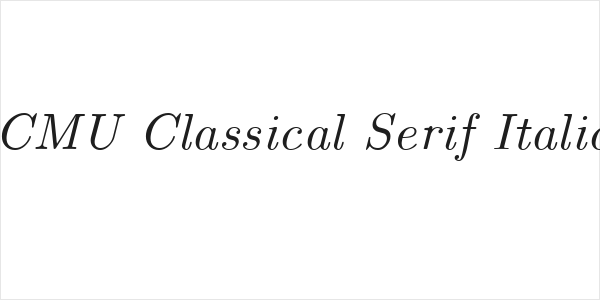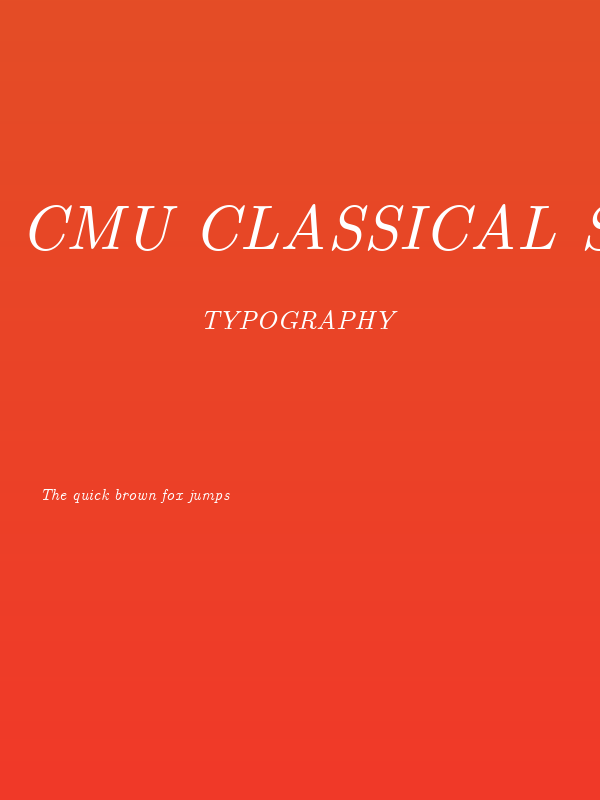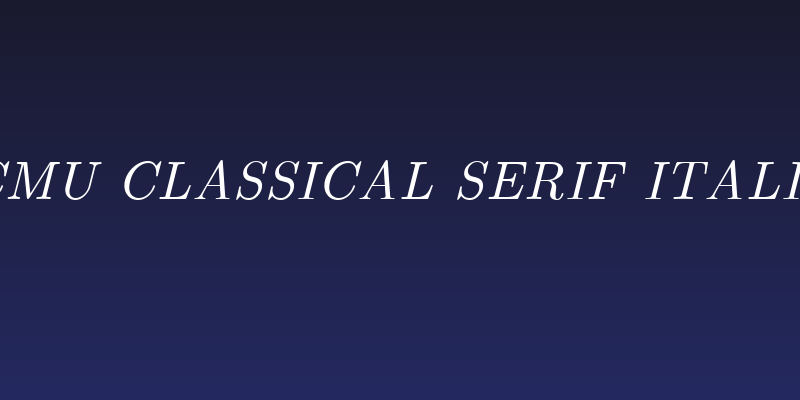
CMU Classical Serif Italic Font
CMU Classical Serif Italic Description
This font exudes a classic elegance with its italicized serif style, characterized by graceful curves and a refined structure. The uppercase letters are tall and stately, while the lowercase letters maintain a smooth flow, enhancing readability. The numerals are well-proportioned, and the special characters are crafted with precision, adding a touch of sophistication. The overall design is balanced, making it suitable for formal and traditional applications. Its italic nature adds a dynamic and fluid feel, perfect for conveying a sense of movement and grace.
| Proposed Projects | Ideal for formal invitations, elegant branding, classic book covers, and sophisticated editorial design. |